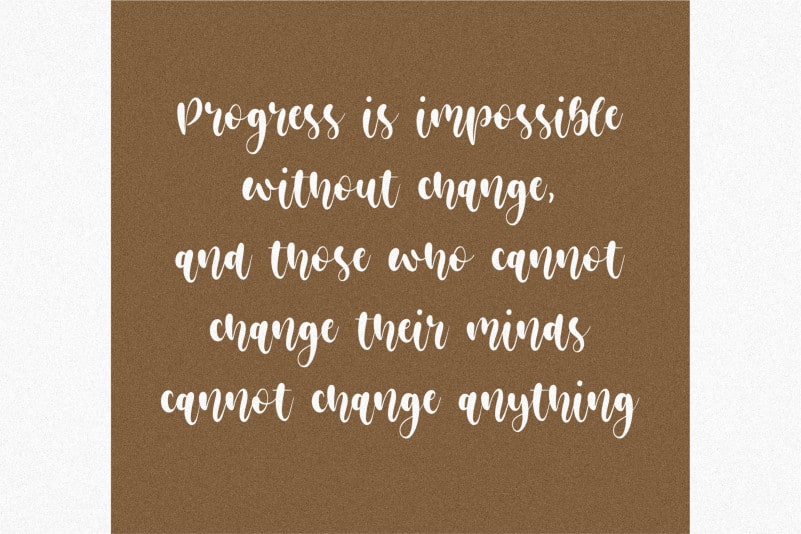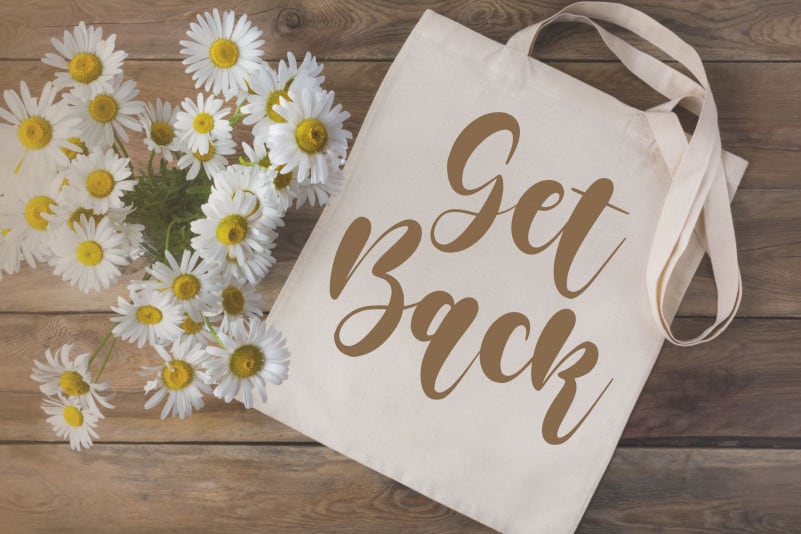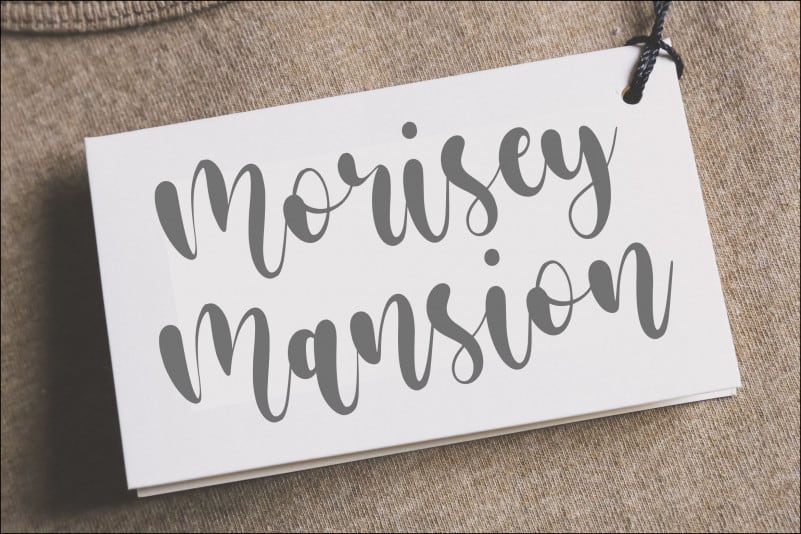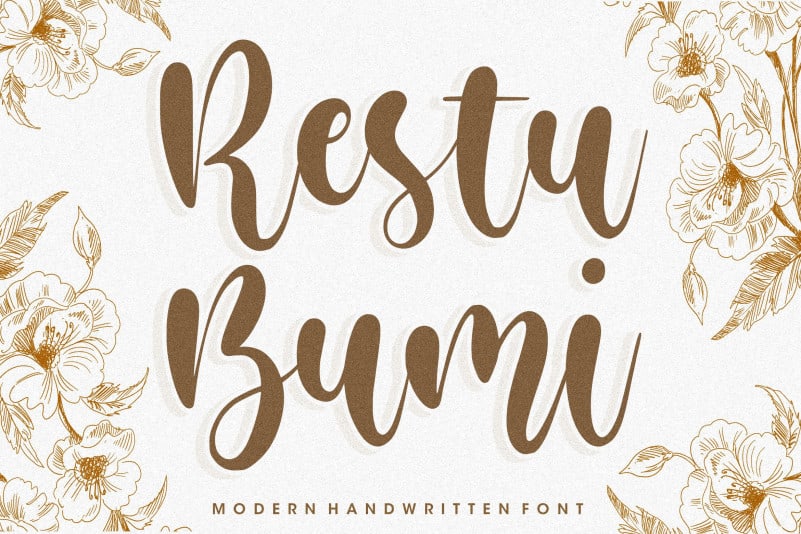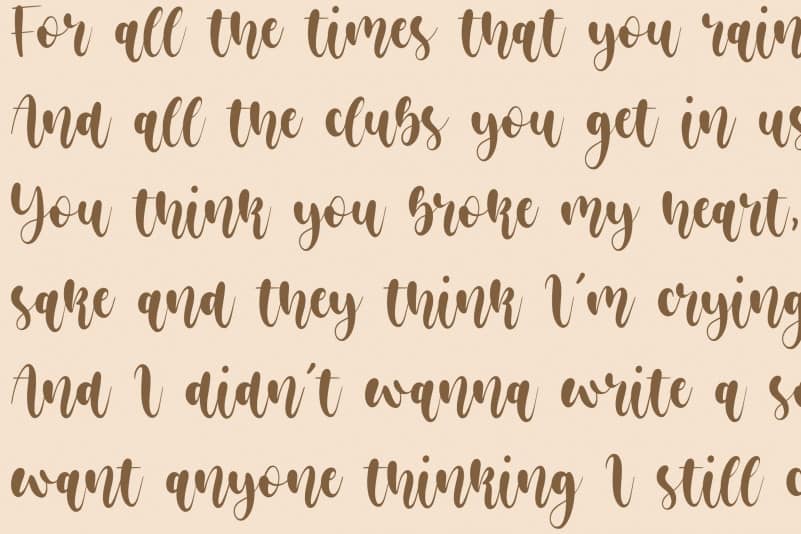
Restu Bumi Modern Handwritten Font
Proudly Present, Restu Bumi Modern Handwritten Font.
Restu Bumi is a Modern Handwritten Font.
Restu Bumi is perfect for product packaging, branding project, megazine, social media, wedding, or just used to express words above the background.